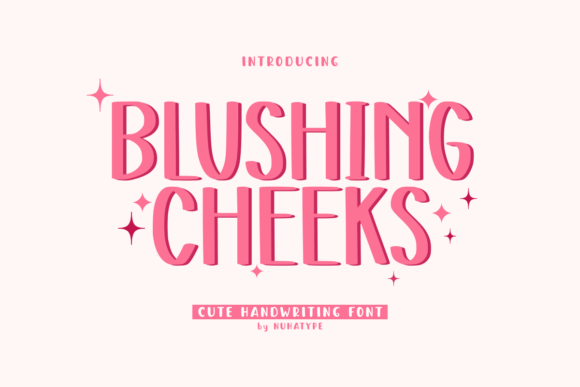
The Blushing Cheeks Font: A Sweet Addition to Your Design Arsenal
I’ll never forget the time I was working on a craft project for my niece’s birthday, trying to create the perfect invitation. I had the design all planned out, but something was missing – the right font. I scrolled through my favorite font websites, but nothing seemed quite right. That’s when I stumbled upon the Blushing Cheeks font. Its soft, friendly, and natural look instantly won me over, and I knew it was the perfect fit for my project.
I’ve had the pleasure of working with the Blushing Cheeks font for a while now, and here’s my honest review:
- ✨ Adorable handwritten style: The Blushing Cheeks font has a warm, handcrafted feel that’s perfect for craft projects, planners, stickers, and more.
- ✅ Easy to read: The simple strokes and smooth curves make it easy on the eyes, even for younger audiences.
- ✅ Versatile: This font works beautifully for quotes, greeting cards, kids’ labels, coloring pages, worksheets, bullet journals, scrapbooks, and playful graphic projects.
As for quirks, I’ve noticed:
- 🤔 Limited character set: While the font has a lovely selection of characters, it might not have every special character or glyph you need.
- ⚠️ Not suitable for body text: Due to its handwritten nature, the Blushing Cheeks font is best used for headings, titles, or short paragraphs.
The Story Behind Blushing Cheeks
The Blushing Cheeks font was designed with the intention of creating a warm, friendly, and approachable handwritten style. The designer aimed to craft a font that would evoke a sense of nostalgia and playfulness, perfect for crafty projects and creative endeavors. While the designer’s background is unknown, their passion for creating beautiful, functional fonts is evident in the Blushing Cheeks font.
| Font Name | Blushing Cheeks Font |
| Author | Nuhatype |
| What type of projects is the Blushing Cheeks font best suited for? | The Blushing Cheeks font is perfect for craft projects, planners, stickers, kids’ worksheets, classroom printables, and DIY designs. |
| Is the Blushing Cheeks font suitable for body text? | No, the Blushing Cheeks font is best used for headings, titles, or short paragraphs due to its handwritten nature. |